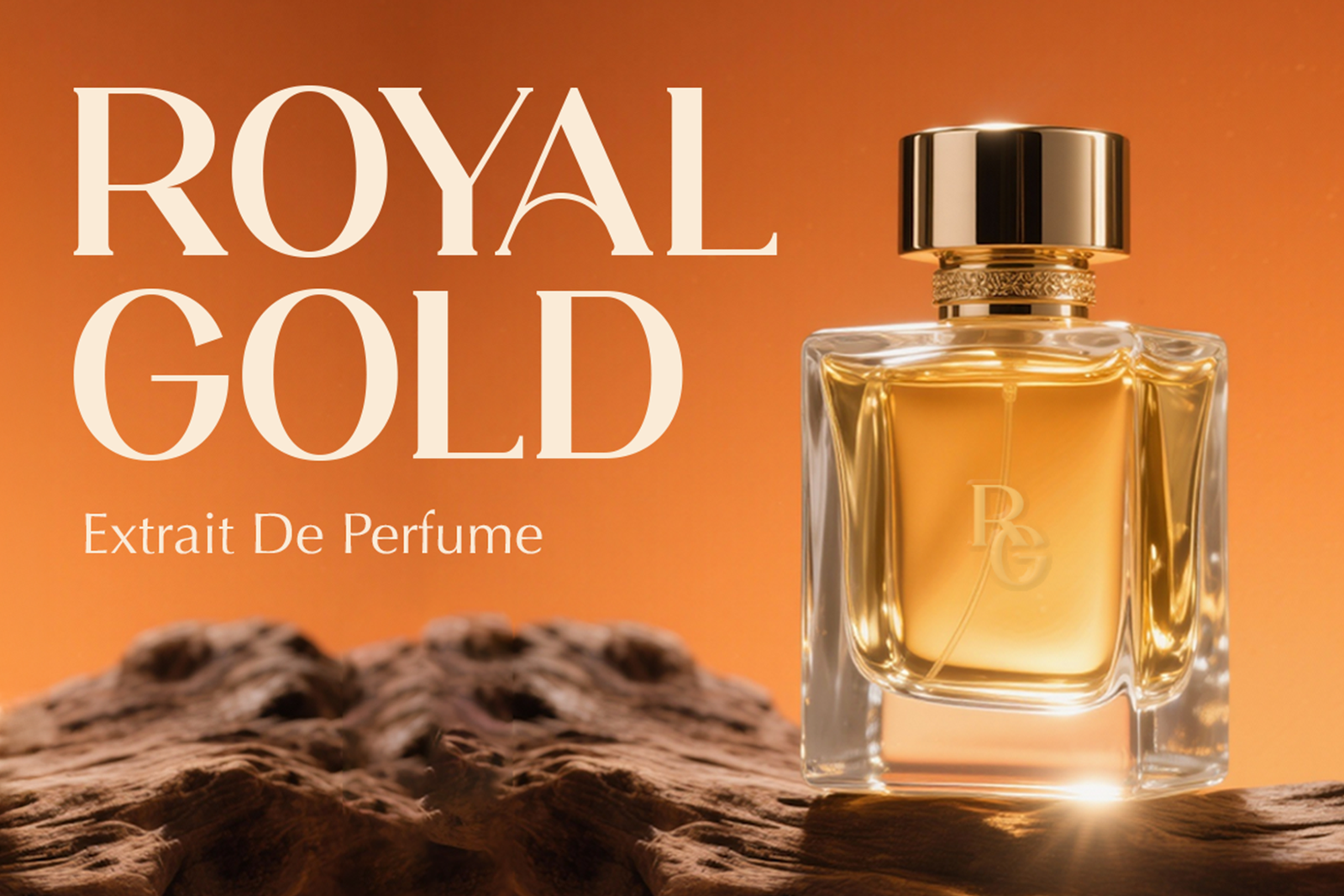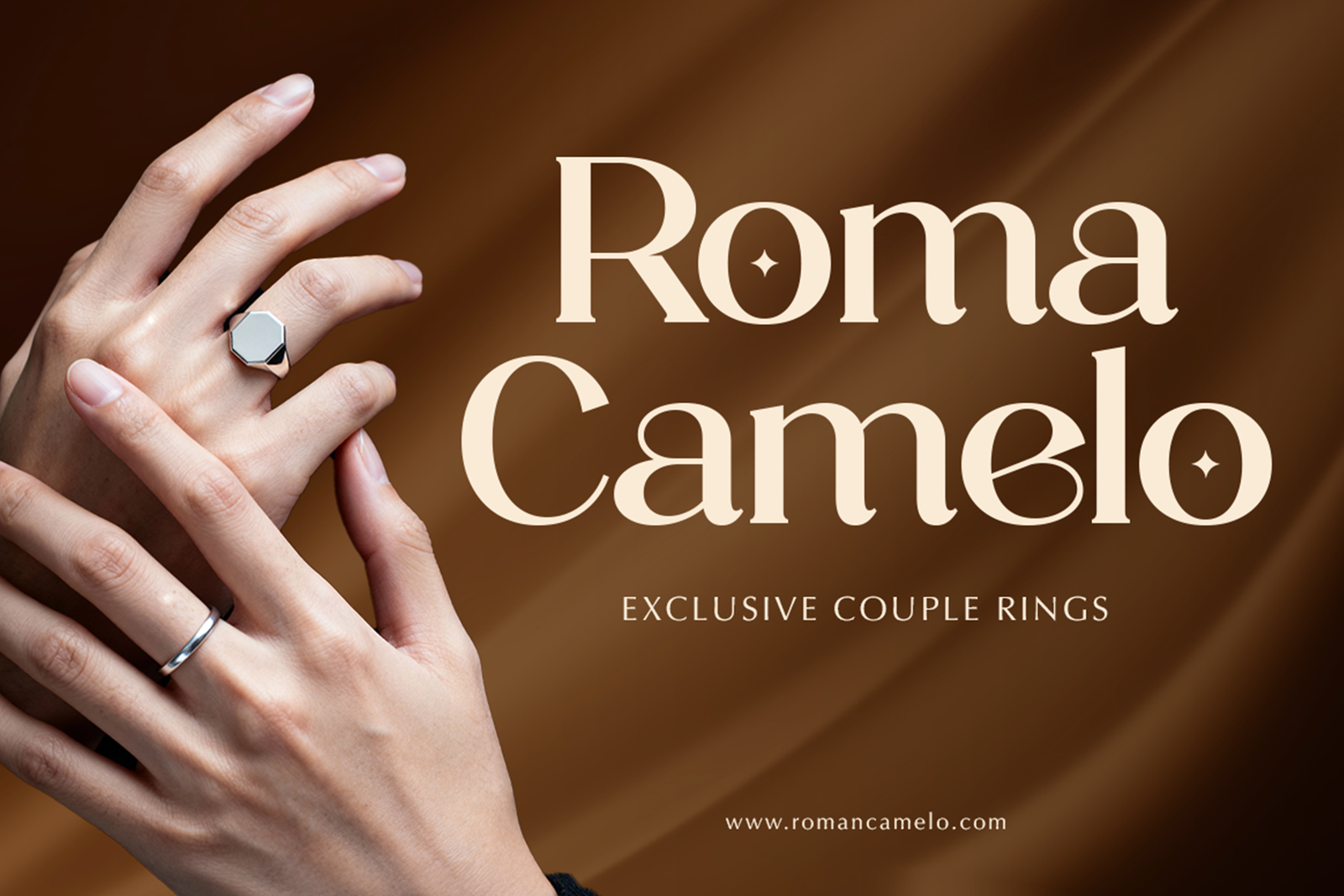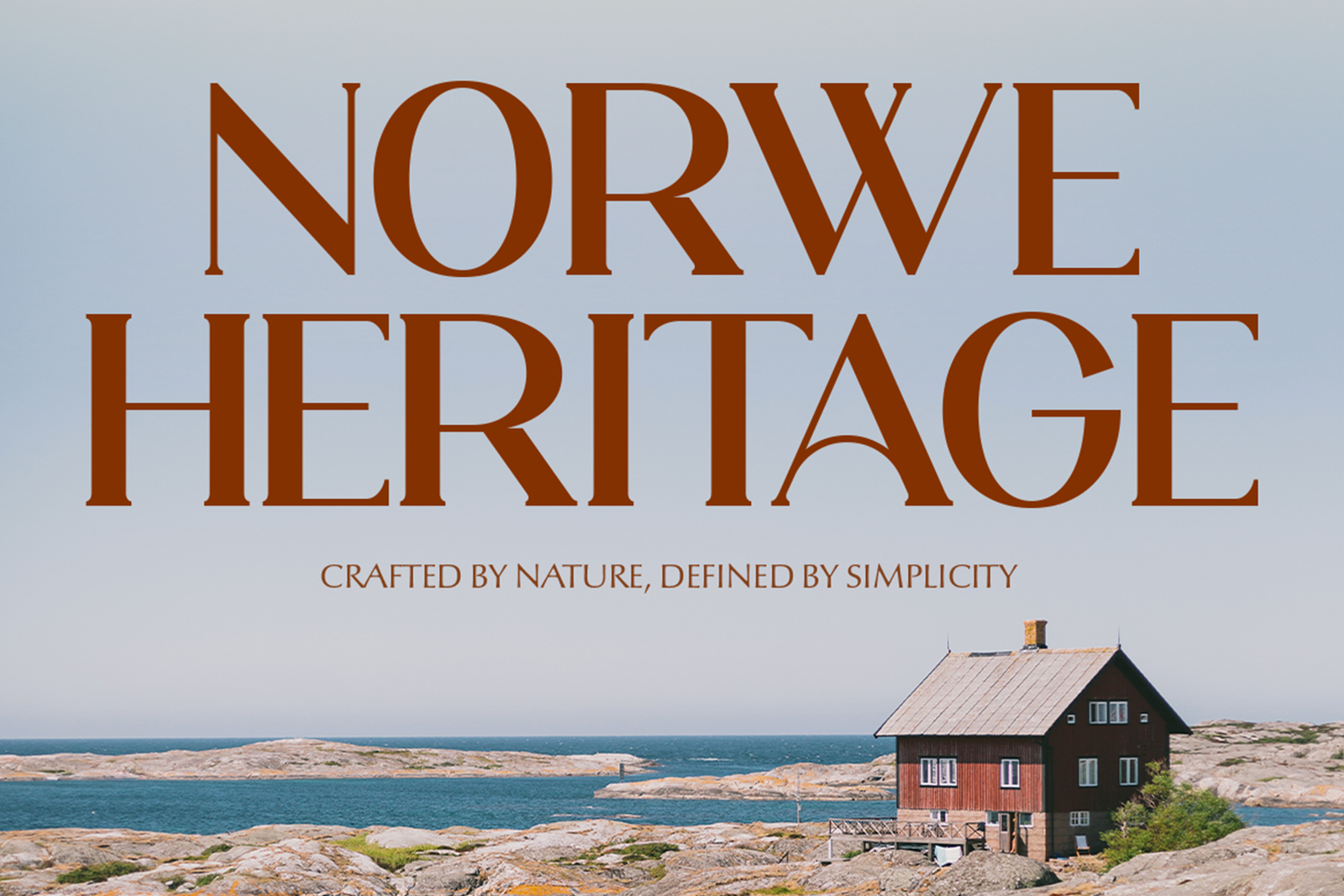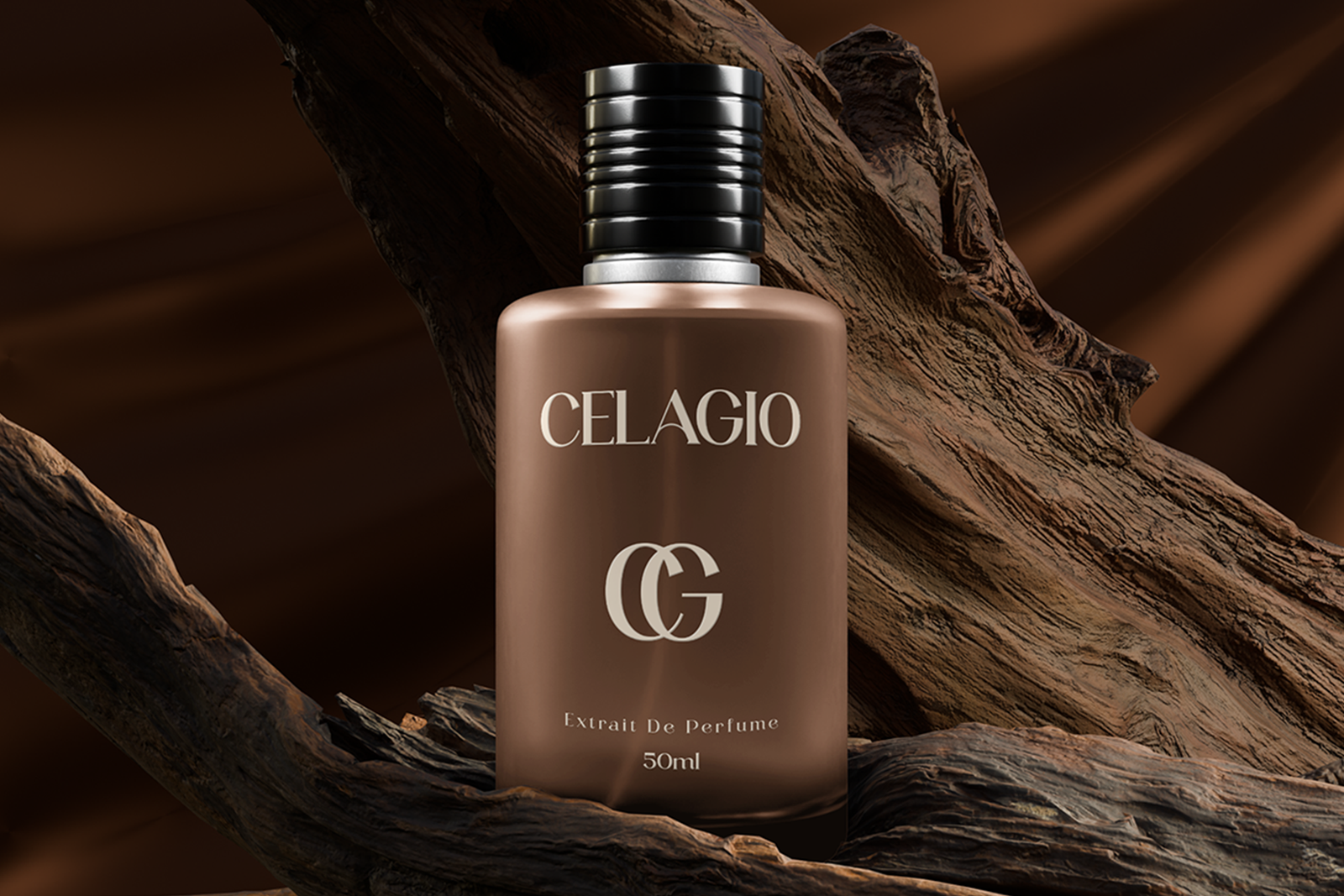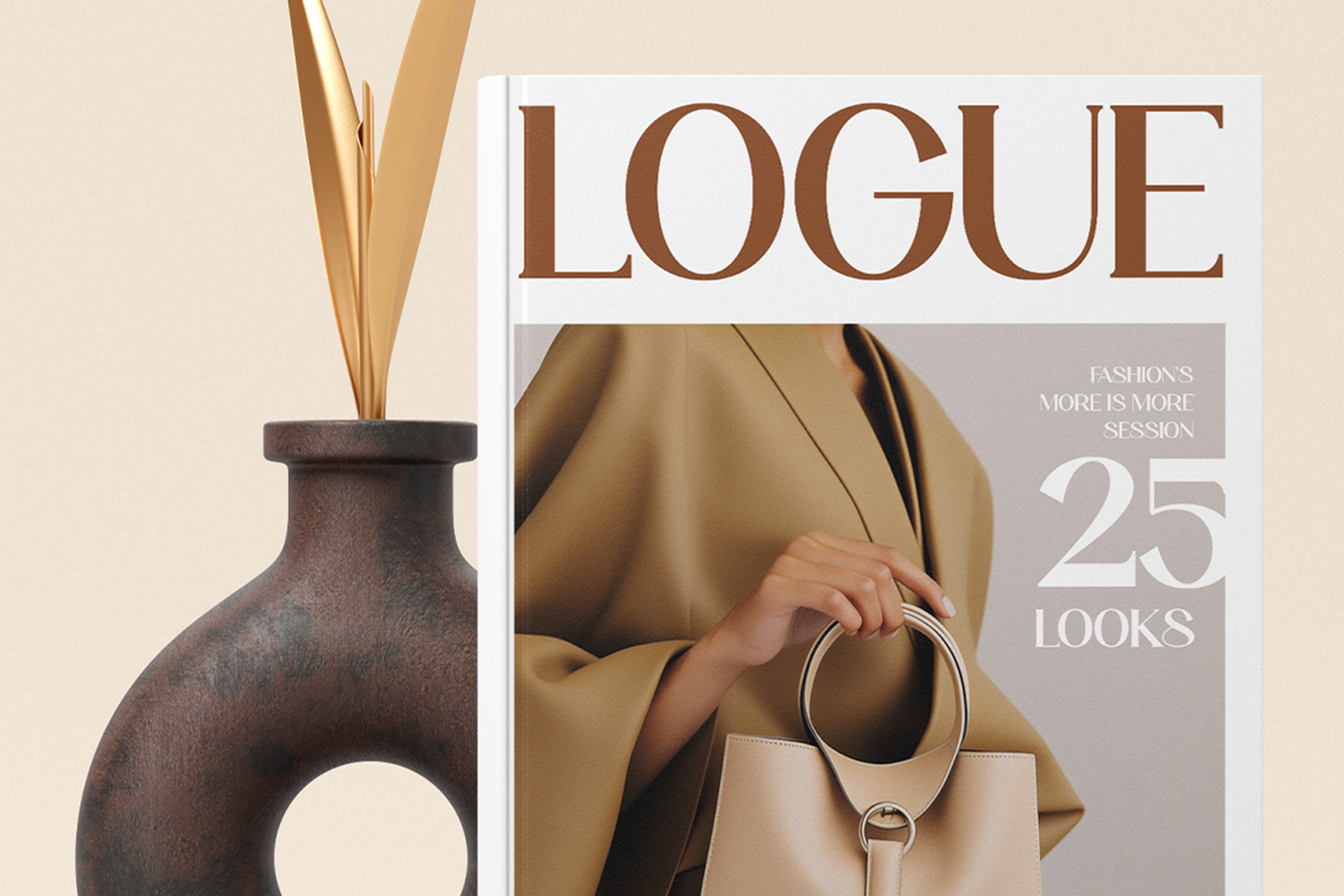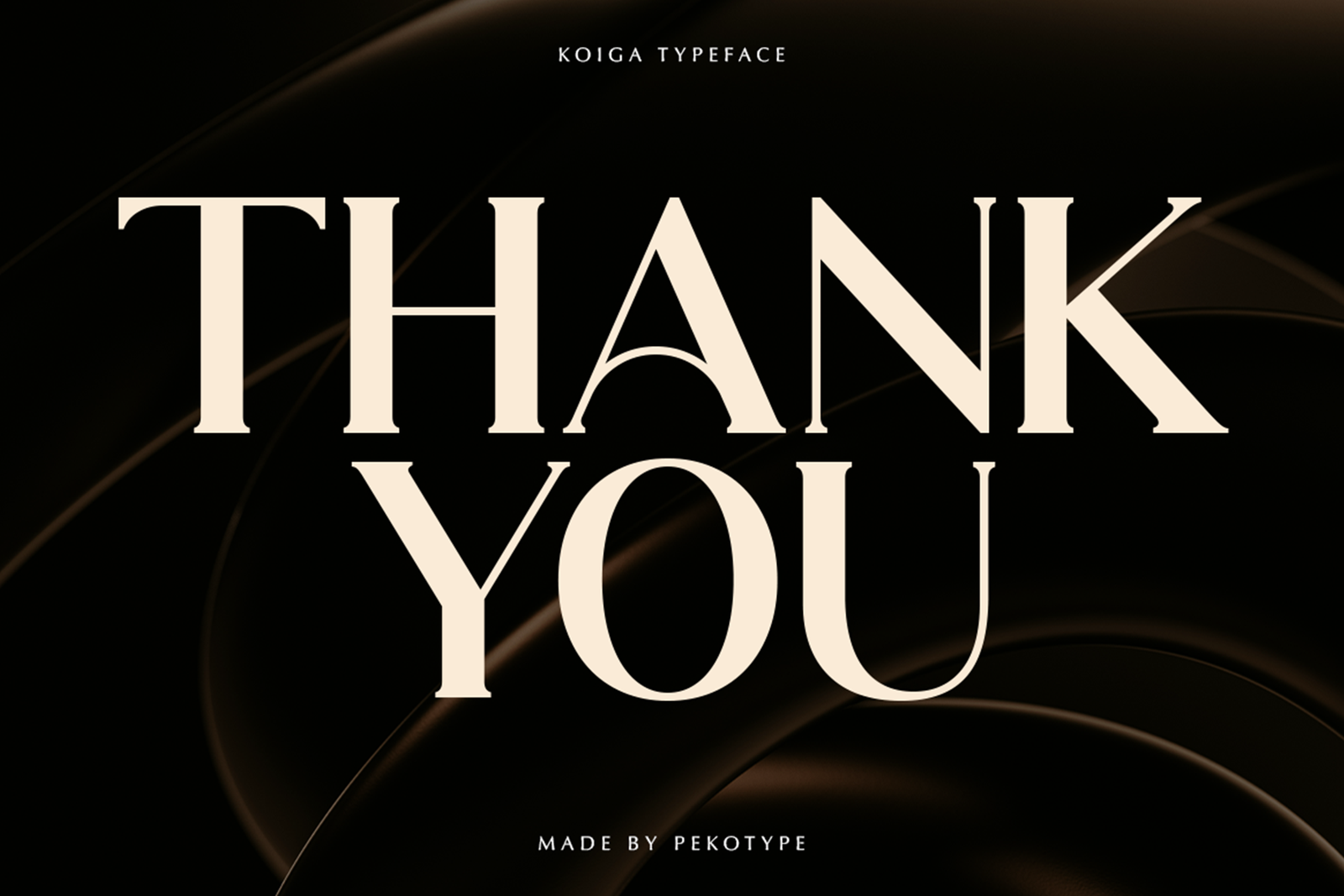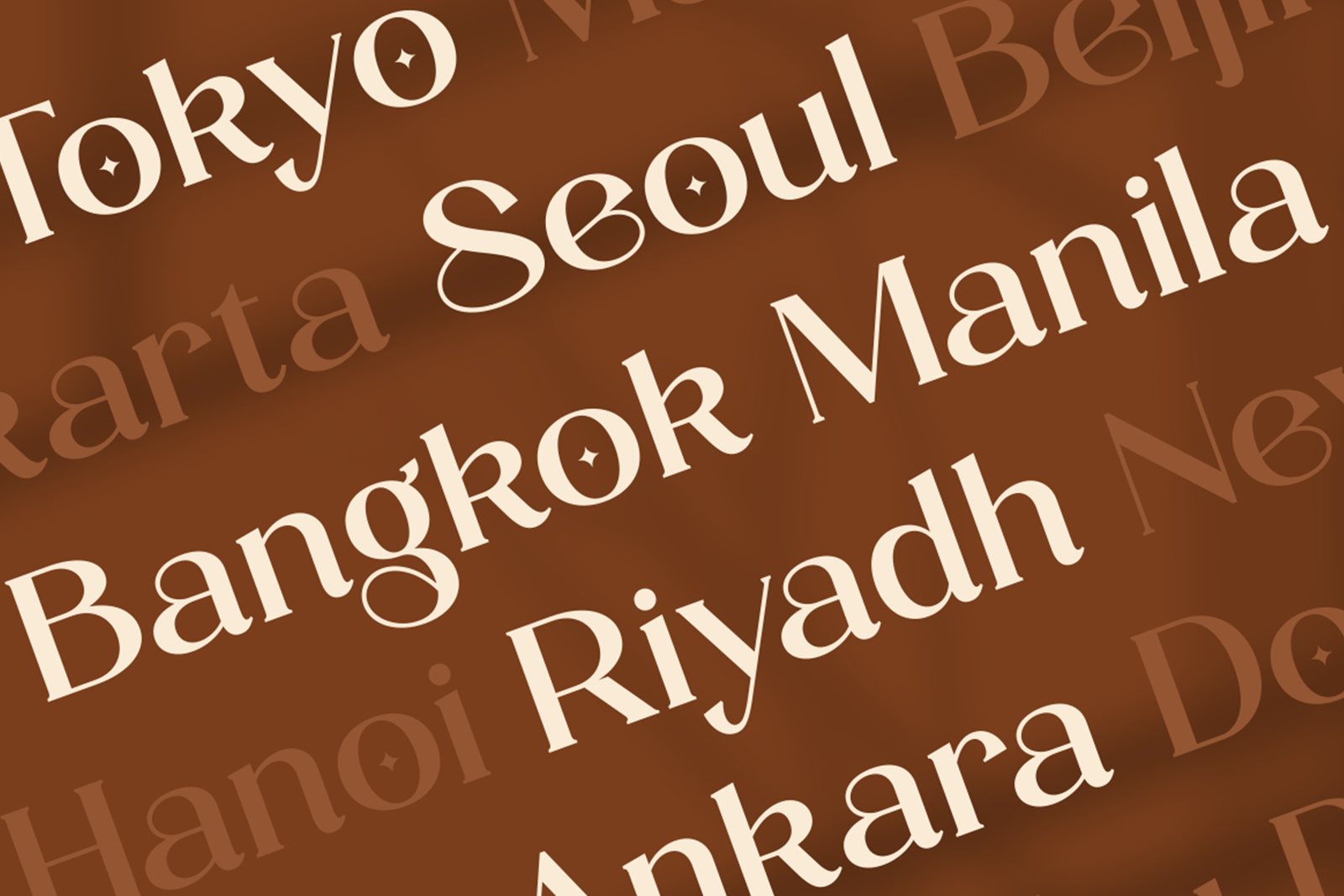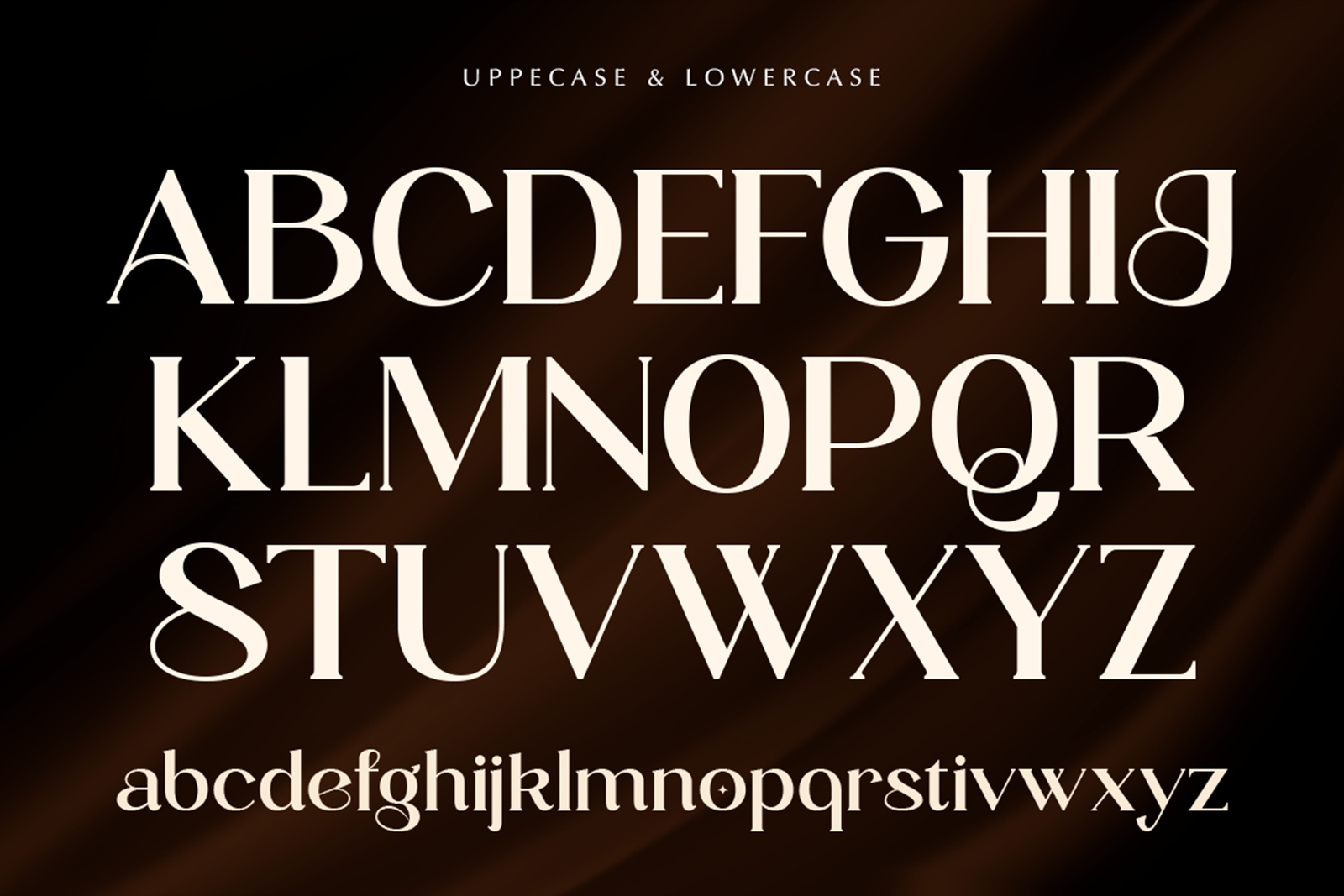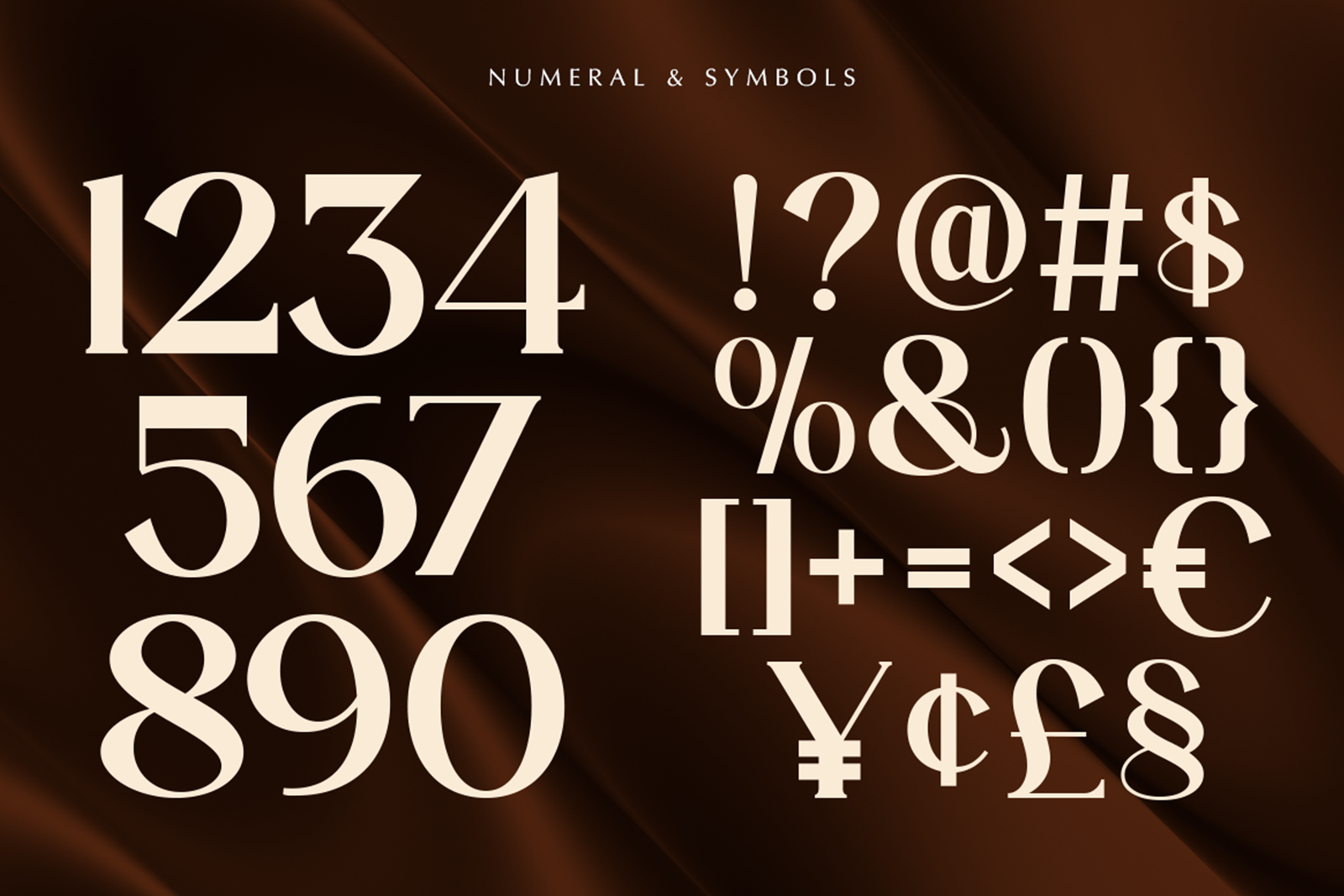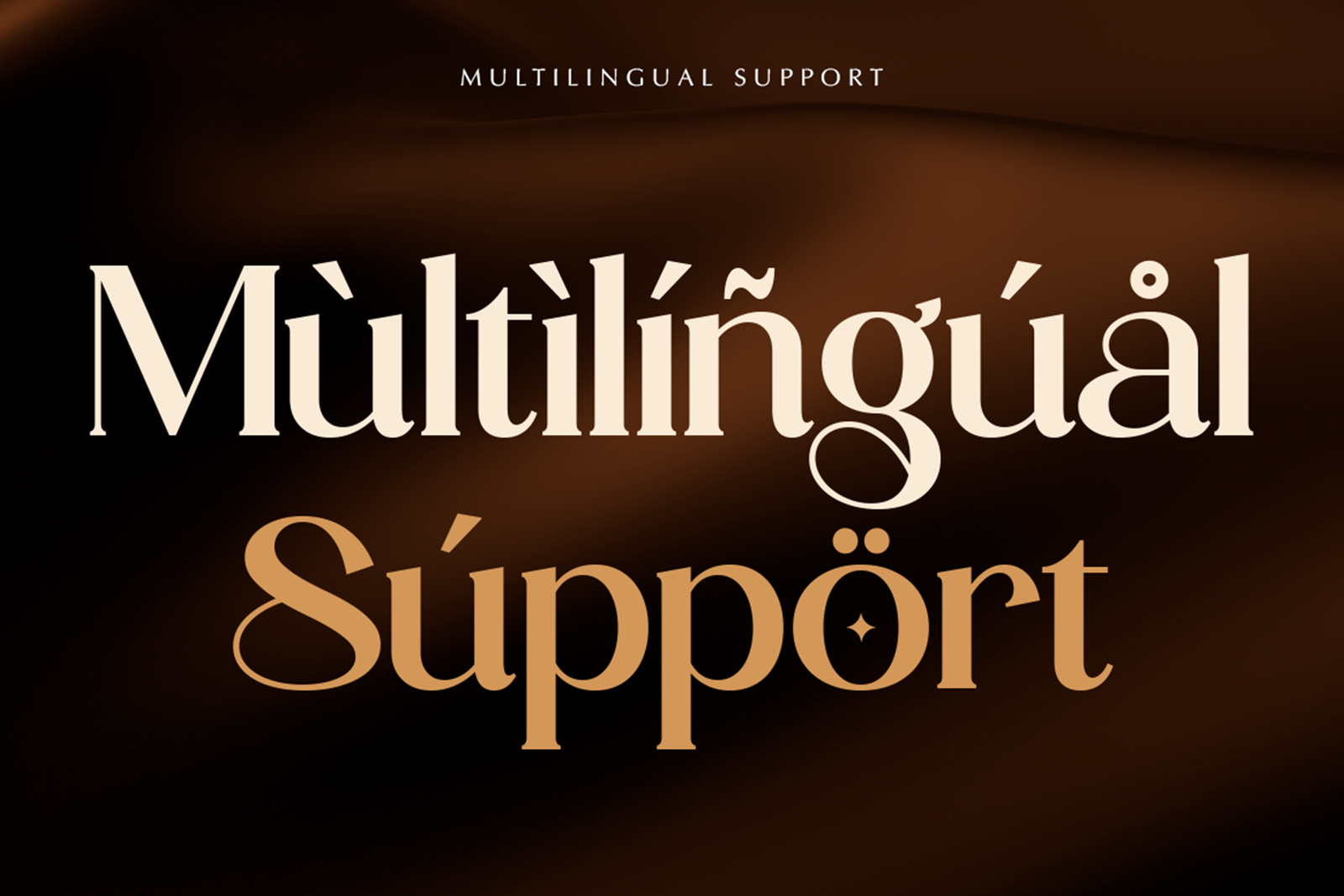
KOIGA Font is an elegant serif display typeface with luxury curves and refined details. Perfect for branding, logos, packaging, fashion, and premium designs.
KOIGA Font is an elegant serif typeface created to bring a luxurious and sophisticated feeling to your designs. It features smooth curves, refined details, and high-contrast strokes that create a premium visual style while maintaining excellent readability. The graceful letterforms give every word a timeless character, making this font a perfect choice for projects that need a classy and professional appearance.
KOIGA Font is an elegant serif display typeface created for designers who want to bring a luxurious and sophisticated feeling to their creative projects. With refined curves, high contrast strokes, and balanced proportions, this font creates a premium appearance while maintaining excellent readability. The classic serif style combined with modern details makes this font suitable for various professional and creative applications.
With uppercase, lowercase, numbers, symbols, punctuation, and multilingual support, KOIGA Font provides flexibility for various creative needs. The combination of classic serif elements and modern proportions makes this typeface suitable for both digital and print applications. This elegant serif typeface is a versatile choice for designers who want to create elegant visuals with a luxurious, timeless, and refined atmosphere.